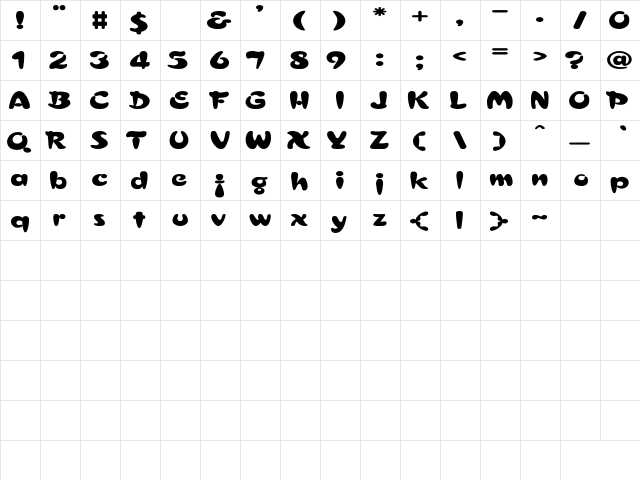
Electrik Ex Regular
Design Context for Electrik Ex Typeface
Electrik Ex is a composed and adaptable typeface that performs quietly and consistently across a wide range of design contexts.